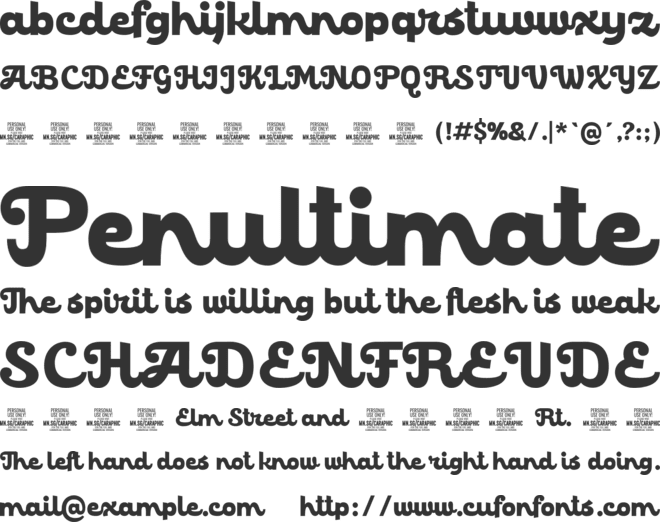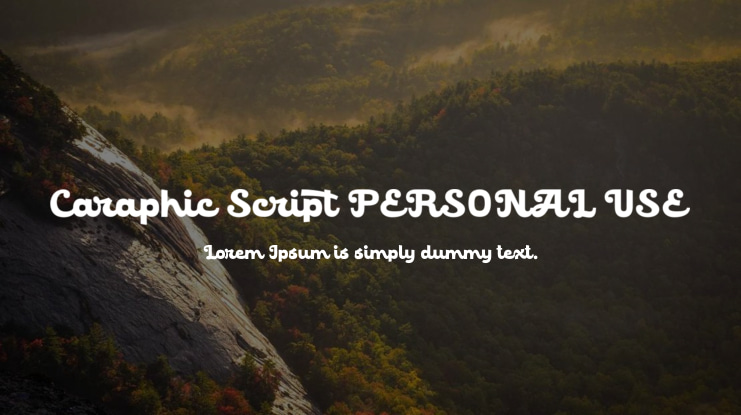
Caraphic Script PERSONAL USE Font
Caraphic Script is a beautiful blend of script typefaces and Middle Eastern design. It has a unique charm that is reflected in its seamless support for both Latin and Arabic scripts, making it a harmonious choice that bridges different worlds and cultures.